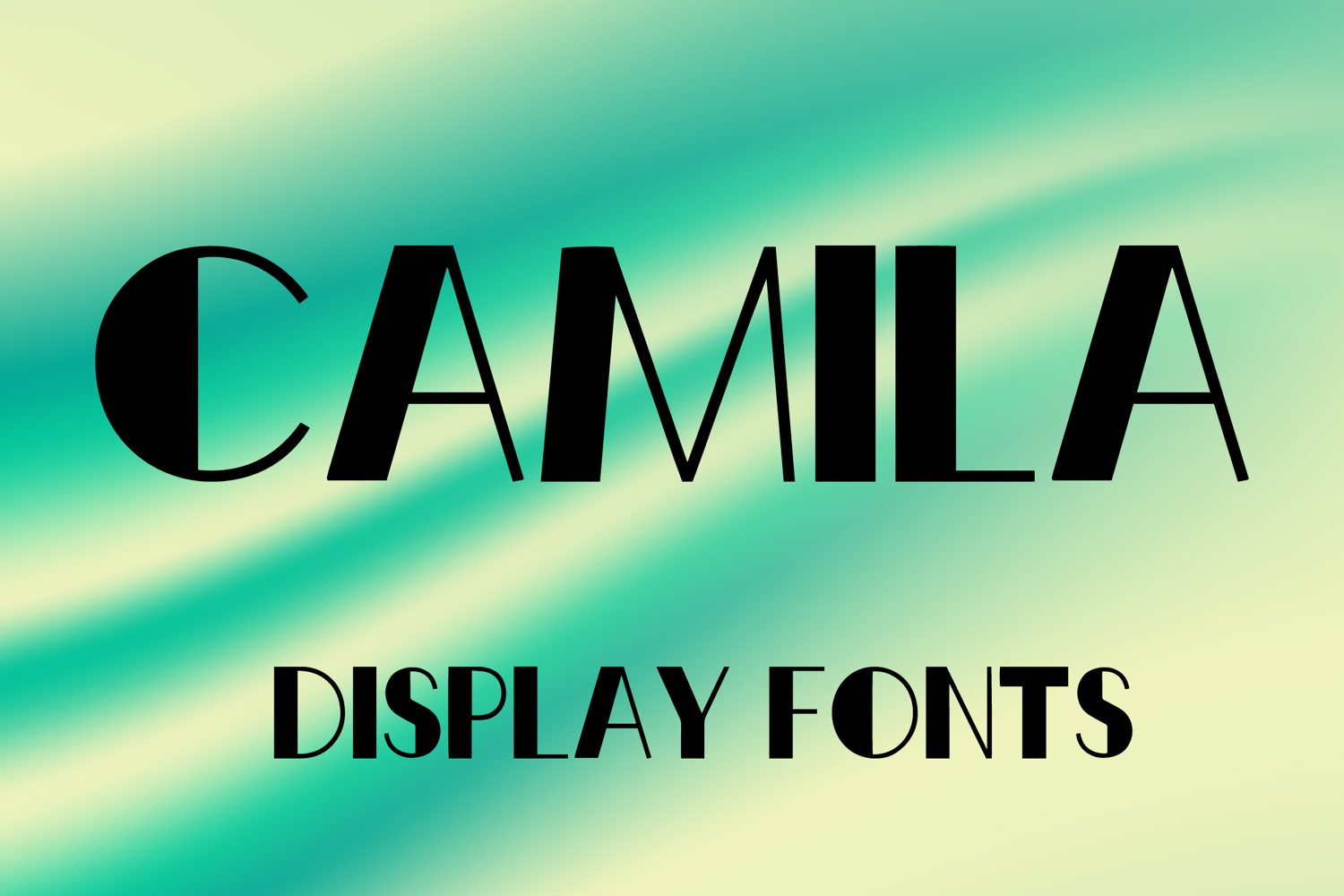
CAMILA
CAMILA is a bold display font with a sleek modern style and elegant geometric character. Its uppercase letterforms feature strong contrasting shapes, clean vertical lines, and refined minimalist details that create a stylish, sophisticated, and eye-catching look. Designed with uppercase letters A–Z and numbers 0–9, CAMILA is perfect for branding, posters, packaging, logos, headlines, social media graphics, and creative projects that need a chic and memorable statement.